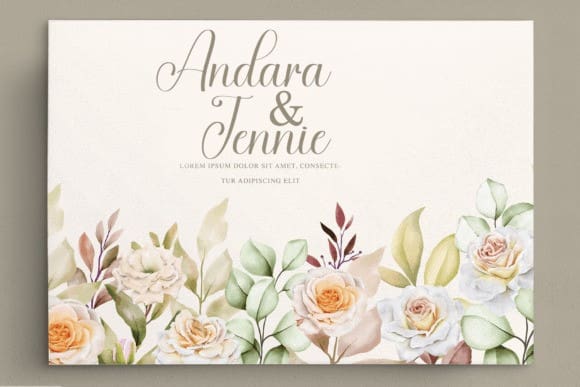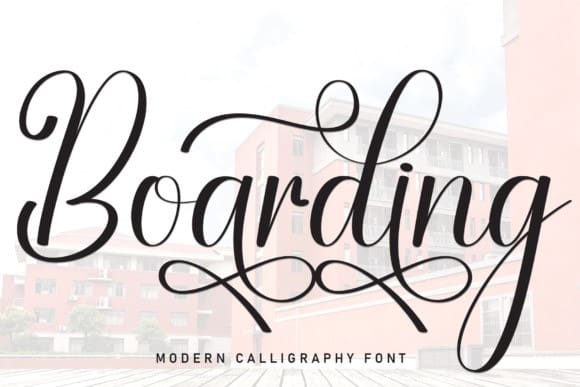
Boarding Font
Boarding Font is a playful and expressive script and handwritten typeface that captures the spirit of adventure and exploration. With its lively and dynamic letterforms, it adds a sense of movement and excitement to any design. Perfect for travel-related projects, branding, and creative endeavors that embrace a free-spirited and energetic vibe.